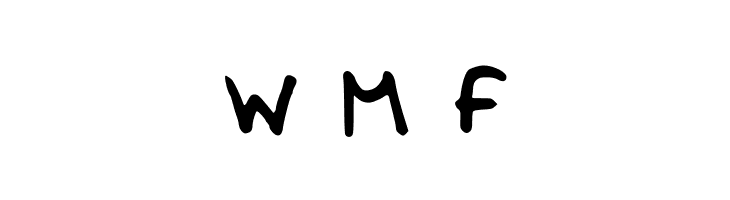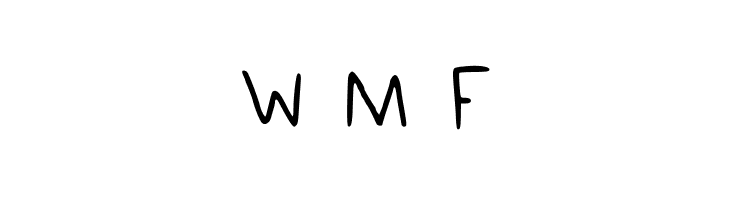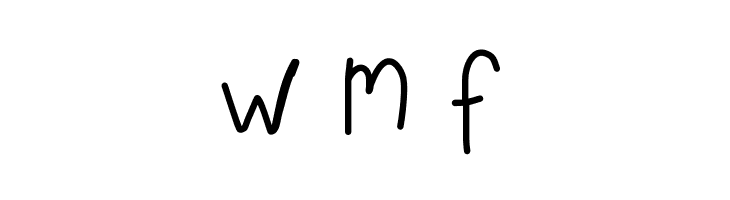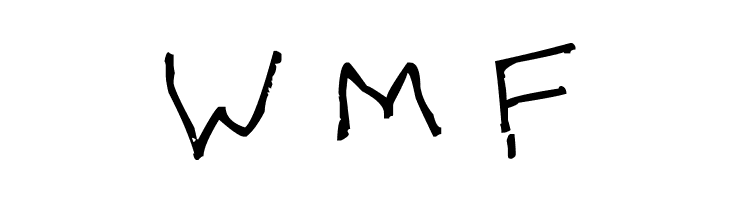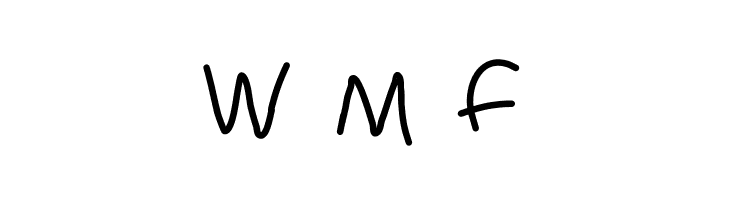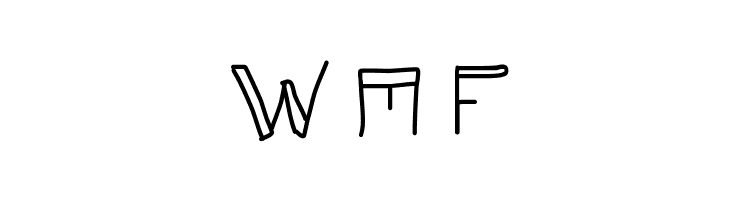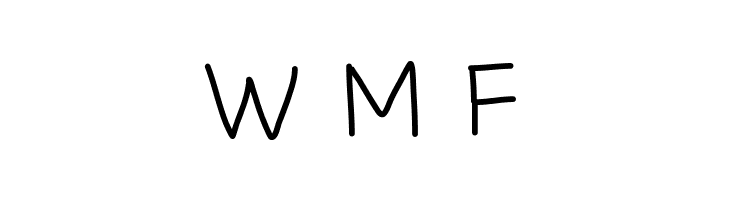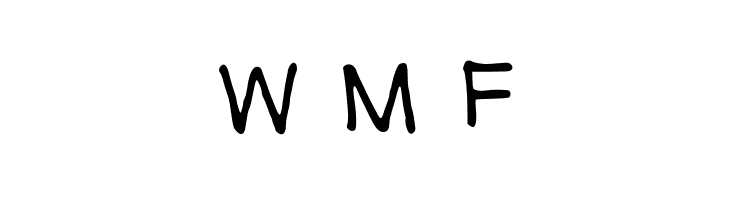
A playful, handwritten font with tall, narrow characters and a whimsical style.
A playful, handwritten font with a casual, chalkboard style.
A playful, handwritten font with rounded, consistent strokes and a casual vibe.
A playful handwritten font with a casual and friendly style.
A casual, handwritten font with rounded, smooth letterforms and a friendly appearance.
A playful, handwritten font with tall, narrow letters and a casual feel.
A casual, handwritten font with a playful and informal style.
A playful, casual handwritten font with smooth, flowing lines.
A casual, handwritten font with a playful and informal style.
A playful, casual handwritten font with uneven strokes and a whimsical style.
A casual, friendly handwritten font with smooth, rounded strokes.
A casual, handwritten font with bold, consistent strokes and a playful aesthetic.
A playful, casual handwritten font with rounded, consistent strokes.